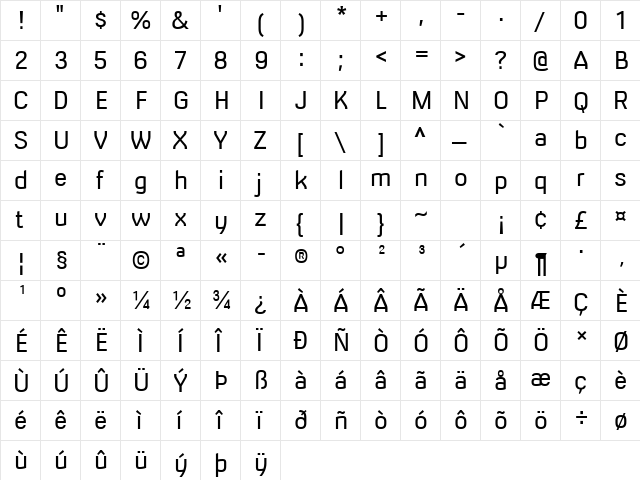
Milibus Lt Regular Font Preview
Milibus Lt Regular
Milibus Lt Regular Font Details
Design Context for Milibus Lt Typeface
Milibus Lt takes a measured approach to typography — its balanced proportions and neutral character make it a reliable workhorse for both digital and print work. Its slender proportions lend an understated elegance to any composition.